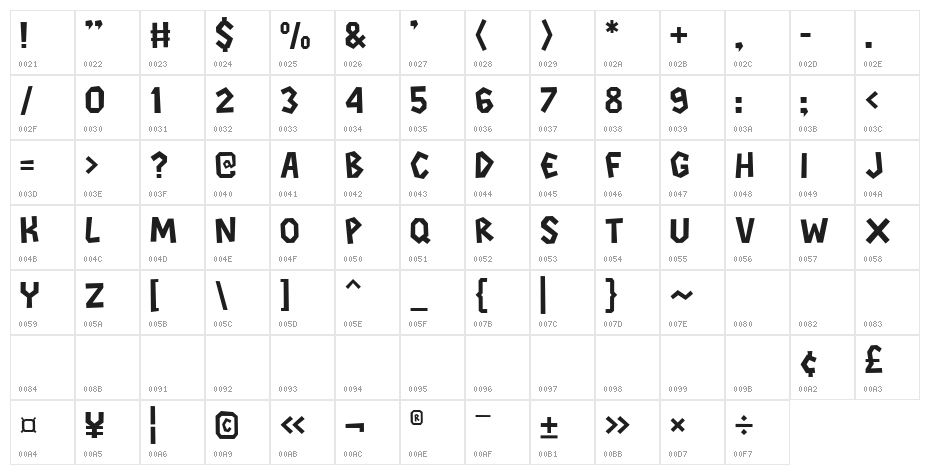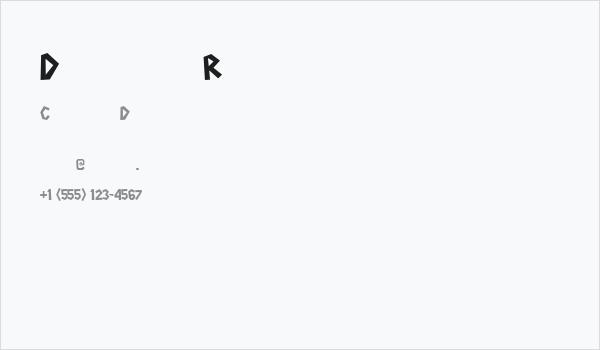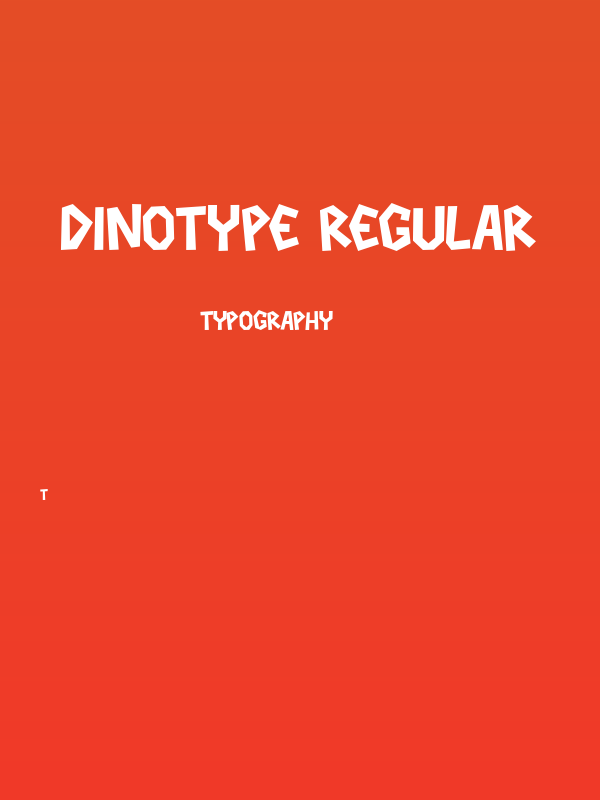
Dinotype Regular Font
Dinotype Regular Description
This font features a bold and angular design, characterized by its sharp edges and geometric shapes. The uppercase letters exhibit a strong presence with a slightly condensed form, creating a sense of urgency and impact. The numerals and special characters maintain this angular style, ensuring consistency across all glyphs. The font's unique style makes it stand out, offering a modern and edgy aesthetic that is both eye-catching and memorable.
| Proposed Projects | Ideal for use in posters, logos, and branding materials that require a strong, modern aesthetic. |